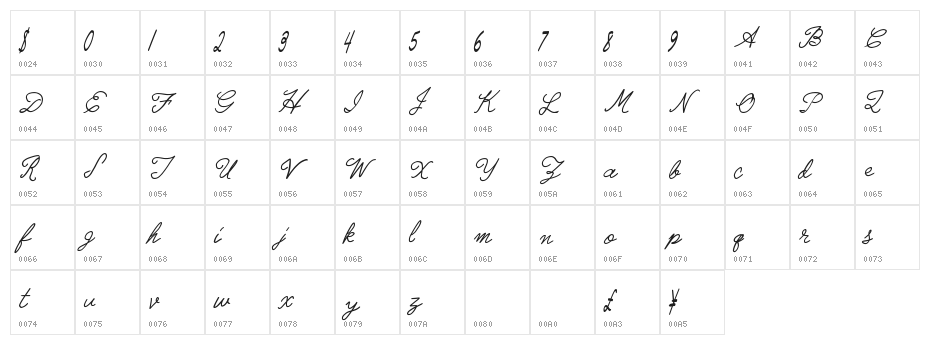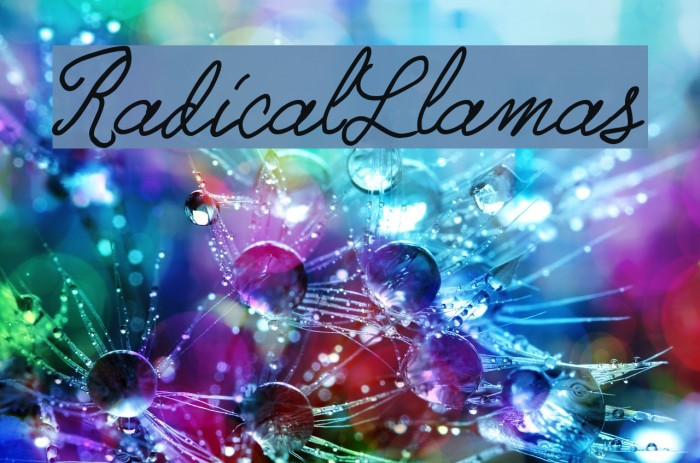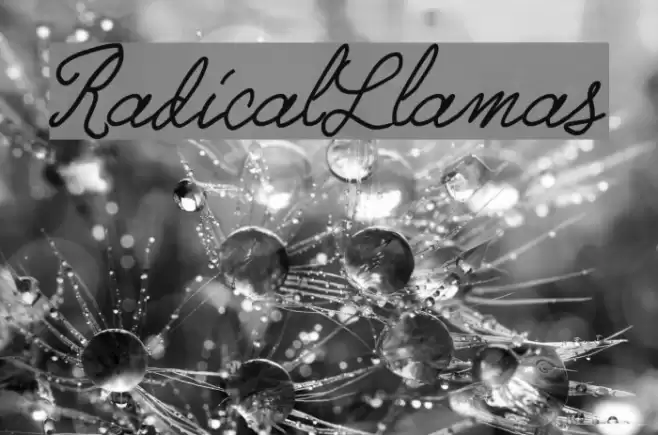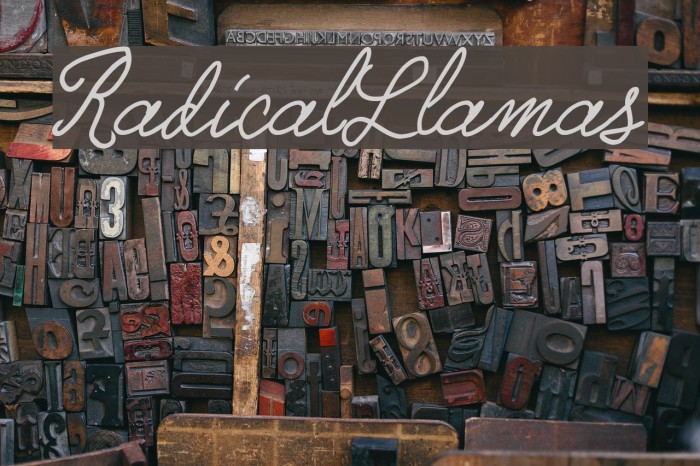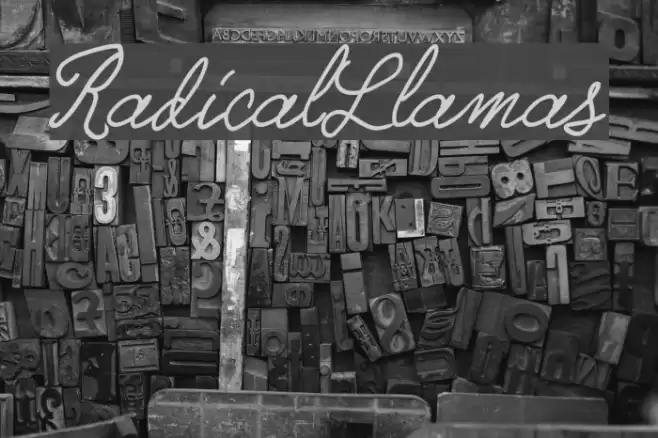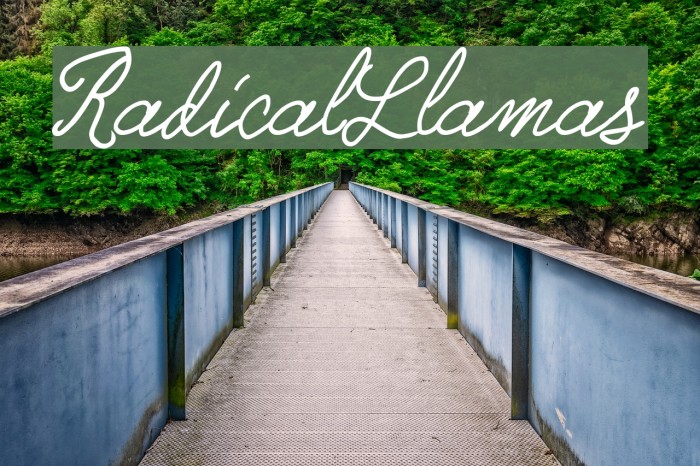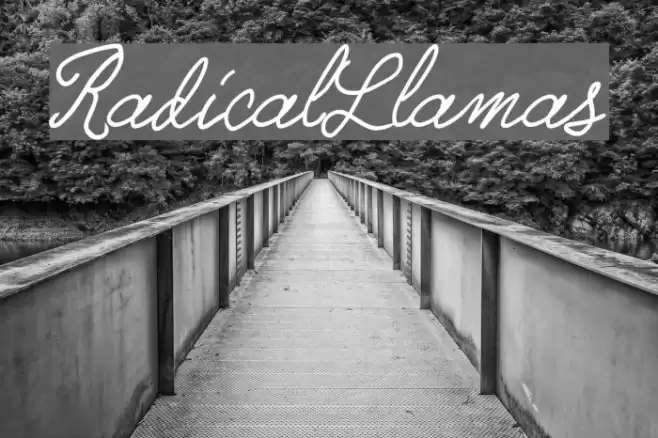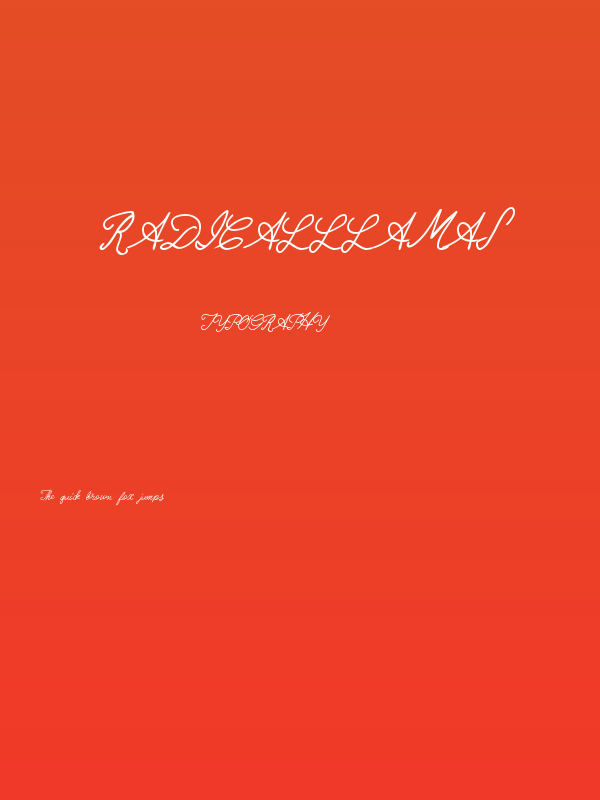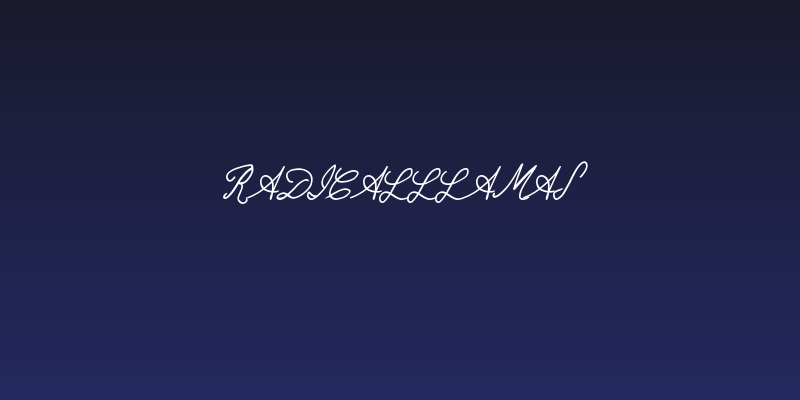
RadicalLlamas Font
RadicalLlamas Description
This elegant script font features flowing, connected letters with a classic cursive style. The uppercase letters are ornate, with sweeping curves and loops that give a sense of sophistication and grace. The lowercase letters maintain a consistent flow, enhancing readability while retaining the decorative nature of the script. Numbers are styled to match the cursive letters, providing a cohesive look across all characters. The special characters, including symbols like the dollar sign and ampersand, are designed with the same attention to detail, ensuring they blend seamlessly with the rest of the font. This font is ideal for projects that require a touch of elegance and formality, such as wedding invitations, formal event programs, or luxury brand logos.
| Use Case | Logos, Invitations, Formal Documents |
| Proposed Projects | Ideal for wedding invitations, formal event programs, luxury brand logos, and elegant stationery. |